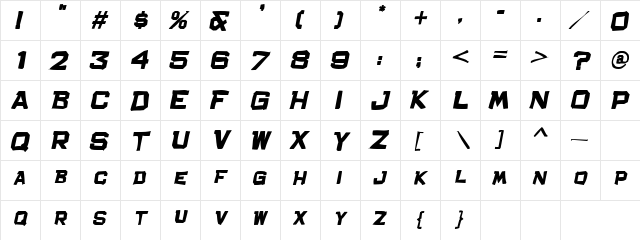
Bachelor Pad Crud JL Italic
| Foundry | Jeff's Fonts & Dingbats |
| Designer | Jeffrey n. Levine |
Design Context for Bachelor Pad Crud JL Typeface
Bachelor Pad Crud JL is a composed and adaptable typeface that performs quietly and consistently across a wide range of design contexts. Its italic angle brings a sense of urgency and motion to the letterforms.
Pro Tip: Try Bachelor Pad Crud JL for annotation and caption copy alongside an upright companion — the contrast in angle creates a dynamic but ordered typographic system.